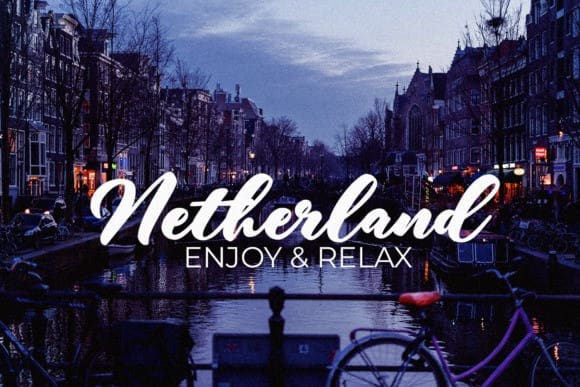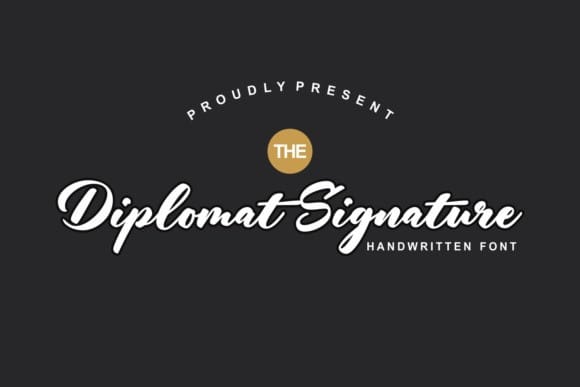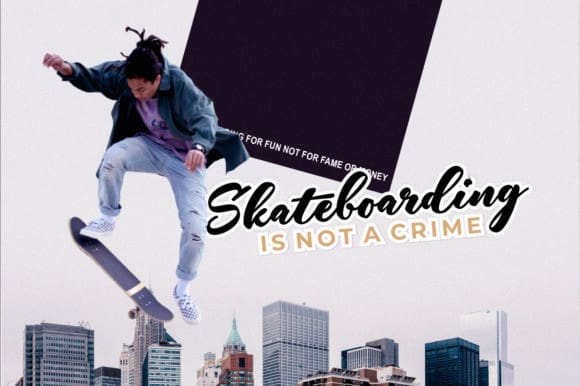
The Diplomat Signature Font
The Diplomat Signature Font is a bold handwritten font with a natural look, strong and bold taste.
The Diplomat Signature is perfect for branding projects, logo, wedding designs, social media posts, advertisements, product packaging, product designs, label, photography, watermark, invitation, stationery and any projects that need handwriting taste.